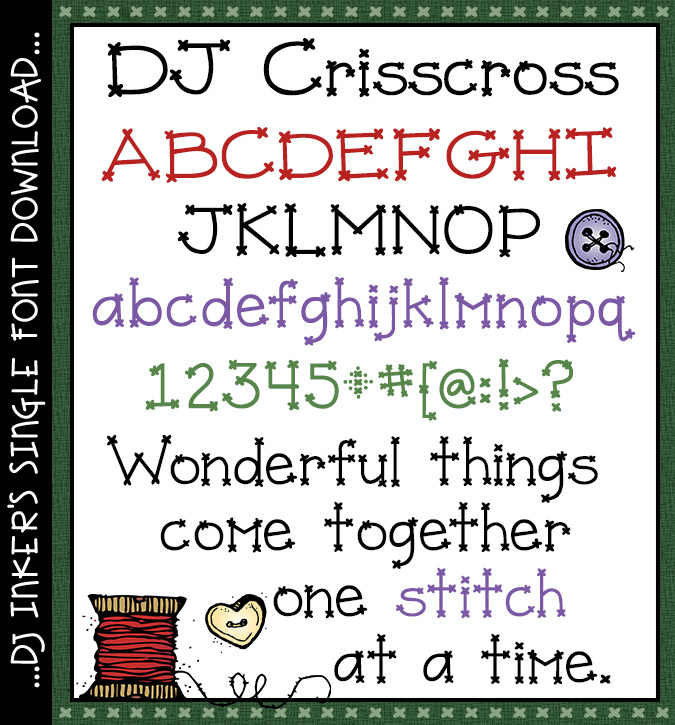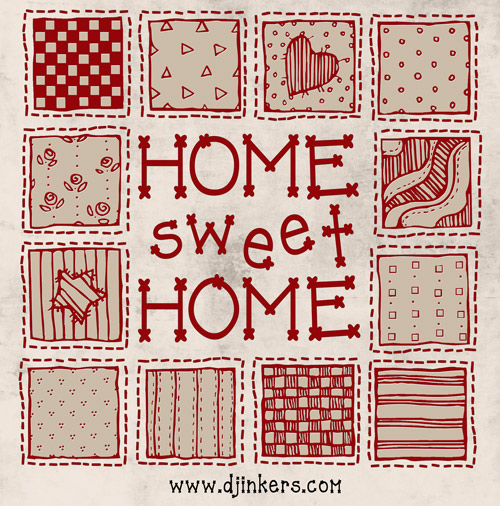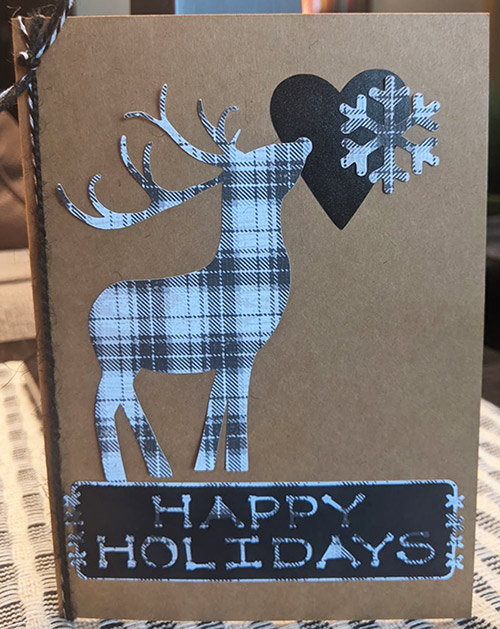
DJ Crisscross is a fun cross stitch style font for sewing, quilting and crafting by DJ Inkers
DJ Crisscross Font Download
DJ Crisscross is a fun cross stitch style font for sewing, quilting and crafting by DJ Inkers
DJ Crisscross Font Download
Stitch up a smile with this cute and crafty crisscross font by DJ Inkers. This lettering will work oh sew nicely for your text on quilting, embroidery, home and holiday decorating, crafting and adding a homemade touch.
Note: This font has been remastered from 'DJ Cross Stitch' on Super Fontastic.